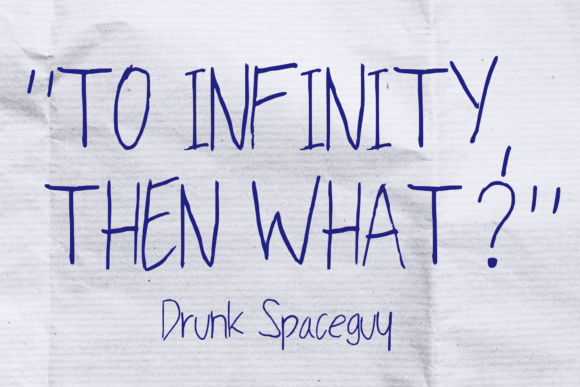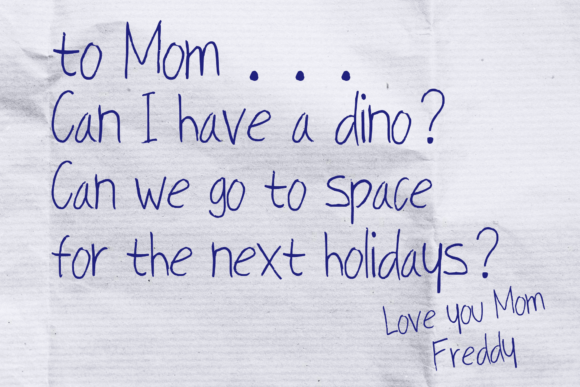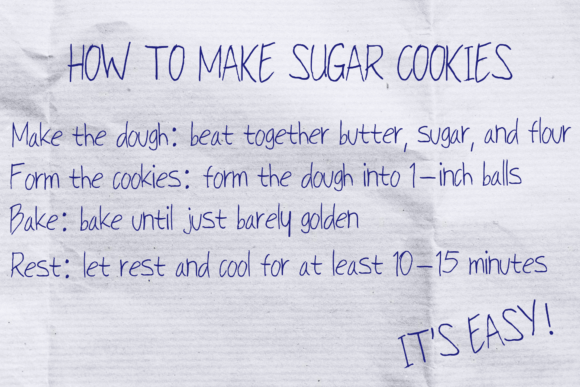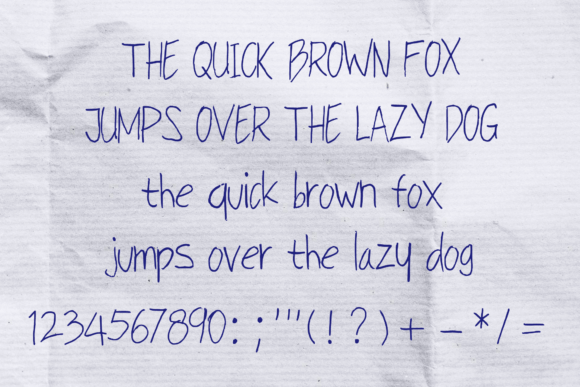
The Perfect Script: Unlocking Creativity with Bapak Script Font
Do you remember the moment when you stumbled upon the perfect font that made your design project come alive? It’s that instant rush of creativity, the spark that sets your imagination ablaze. For designers, finding the right font can be a game-changer. And that’s exactly what Bapak Script Font offers – a versatile and stylish solution that elevates your designs to new heights.
Bapak Script Font is a beautiful, thin handwritten font that adds a touch of sophistication to any project. Whether you’re creating stickers, logos, magazine covers, or comics, this font is sure to impress. Its unique style and versatility make it an invaluable tool for designers looking to add a super cool touch to their designs. With Bapak Script Font, the possibilities are endless, and your creativity will know no bounds.
Bapak Script Font Key Features
- Font Family: Bapak Script is a unique script font designed to evoke a sense of elegance and sophistication. It features a flowing, handwritten style with intricate details.
- Font Size: The font is designed to be versatile and can be used in a range of sizes, from 12 points for body text to 48 points or larger for headings and titles.
- Resolution: The font is optimized for high-resolution displays, making it suitable for use in digital designs, such as websites, social media, and mobile apps, at resolutions up to 300 DPI.
- Unique Characteristics: Bapak Script features a distinctive, hand-drawn feel with subtle imperfections and variations in line width, giving it a human touch and making it perfect for creative and artistic projects.
- Language Support: The font includes a wide range of languages, including Latin, Cyrillic, and Greek alphabets, making it suitable for use in international designs and multilingual projects.
Bapak Script Font Review
I recently had the chance to work with the Bapak Script Font, and I must say it’s a unique addition to any design project. ✨ The elegant, handwritten feel immediately catches the eye, making it perfect for creating a warm and inviting atmosphere.
- ✨ Beautifully crafted ligatures that add a touch of sophistication.
- ✨ A wide range of language support, including Indonesian, making it a great choice for Southeast Asian projects.
- ✨ The font’s script-like nature makes it ideal for creating a sense of personality and character in branding and marketing materials.
However, as with any font, there are some limitations to consider: ⚠️
- ⚠️ The font’s bold weights can sometimes appear inconsistent, which may require some tweaking to achieve the desired look.
- ⚠️ Some characters may not display perfectly in certain operating systems or browsers, which can lead to minor layout issues.
Overall, I’m impressed with the Bapak Script Font’s unique charm and versatility. While it may require some adjustments to work with its limitations, I believe it’s a valuable addition to any designer’s toolkit. With the right project and some careful attention to detail, the Bapak Script Font can help create truly captivating designs.
Use Bapak Script Font to add a unique and personalized touch to your designs. Experiment with different font sizes and styles to achieve the desired effect.
Bapak Script Font is commonly used for wedding invitations, quotes, and inspirational graphics. It’s also great for creating a vintage or rustic look in your designs.
Alternatives to Bapak Script Font
Great Vibes is a beautiful script font that is ideal for use in wedding invitations, quotes, and other creative projects. It features a flowing and elegant design that is perfect for making a statement. Compared to Bapak Script Font, Great Vibes has a more refined and sophisticated look, making it suitable for high-end designs.
Pacifico is a modern script font that is perfect for use in branding, advertising, and packaging designs. It features a unique and stylish design that is both elegant and playful. Compared to Bapak Script Font, Pacifico has a more geometric and modern look, making it suitable for contemporary designs.